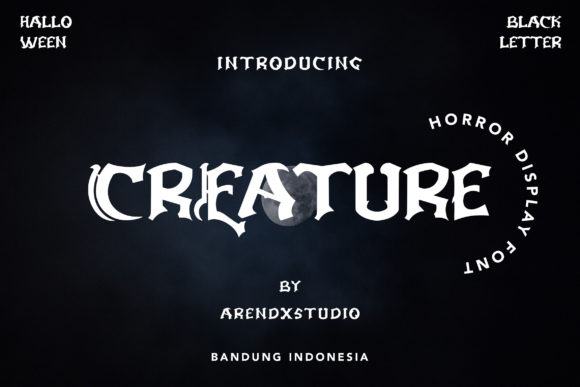
Introducing Creature Font: The Ultimate Blackletter Font for Crafty Designs
Are you a designer or crafter looking for a unique and eye-catching font to elevate your creative projects? Look no further than Creature Font, a thick lettered and uniquely designed blackletter font that’s sure to make a statement. With its original look and versatility, Creature Font is perfect for a wide range of crafty ideas, from letterheads and titles to stationery and more.
What is Creature Font?
Creature Font is a specially designed blackletter font that’s characterized by its thick, bold lines and distinctive letterforms. Unlike traditional blackletter fonts, Creature Font has a unique and modern twist that sets it apart from the rest. Its rugged and edgy look makes it perfect for designs that require a bold and eye-catching font.
Key Features of Creature Font
- Thick Lettered: Creature Font features thick, bold lines that give it a rugged and edgy look.
- Uniquely Designed: The font’s unique letterforms set it apart from traditional blackletter fonts.
- Versatile: Creature Font can be used for a wide range of crafty ideas, from letterheads and titles to stationery and more.
- Easy to Read: Despite its bold and edgy look, Creature Font is easy to read and understand.
Uses of Creature Font
Creature Font is a versatile font that can be used for a wide range of crafty ideas, including:
- Letterheads: Add a touch of elegance and sophistication to your letterheads with Creature Font.
- Titles: Use Creature Font to create eye-catching titles for your books, magazines, and other publications.
- Stationery: Add a personal touch to your stationery with Creature Font’s unique and bold letterforms.
- Signage: Use Creature Font to create eye-catching signs and posters that grab attention.
- Packaging: Add a touch of personality to your product packaging with Creature Font.
Benefits of Using Creature Font
Using Creature Font in your designs can have a number of benefits, including:
- Increased Visibility: Creature Font’s bold and edgy look makes it perfect for designs that require a font that stands out.
- Improved Brand Identity: Using a unique and distinctive font like Creature Font can help to establish your brand identity and set you apart from the competition.
- Easier to Read: Despite its bold look, Creature Font is easy to read and understand, making it perfect for designs that require a font that’s both eye-catching and legible.
Tips for Using Creature Font
Here are a few tips for using Creature Font in your designs:
- Use it Sparingly: Creature Font is a bold and eye-catching font, so use it sparingly to avoid overwhelming your design.
- Pair it with Other Fonts: Pair Creature Font with other fonts to create a unique and visually appealing design.
- Experiment with Colors: Experiment with different colors to find the perfect combination that works with Creature Font.
Creature Font is a unique and versatile blackletter font that’s perfect for designers and crafters looking for a bold and eye-catching font. With its thick lettered and uniquely designed letterforms, Creature Font is sure to make a statement in any design. Whether you’re looking to create letterheads, titles, stationery, or more, Creature Font is the perfect choice.